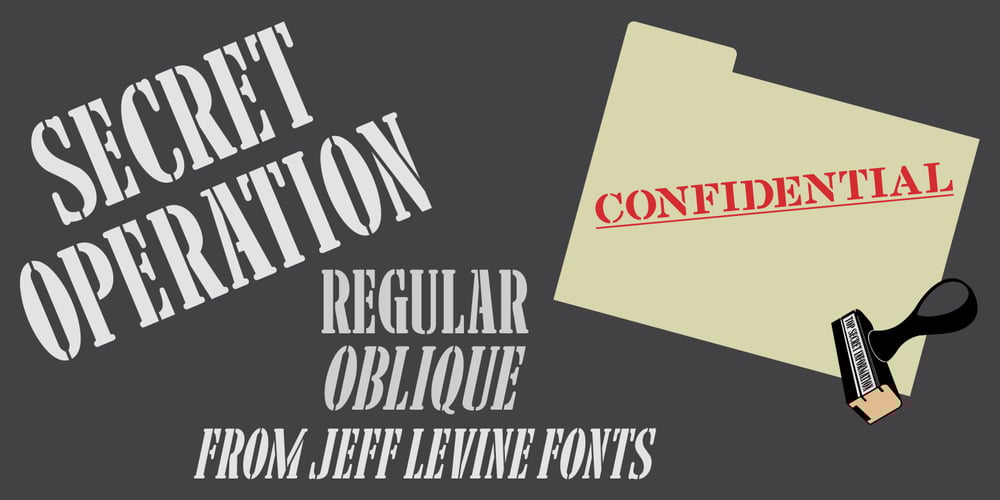
Secret Operation JNL Font Family was designed by Jeff Levine and published by Jeff Levine. Secret Operation JNL contains 2 styles and family package options. The movie poster for the 1952 bank heist drama “Kansas City Confidential” had its title hand lettered in a condensed serif stencil design. This inspired Secret Operation JNL, which is available in both regular and oblique versions.